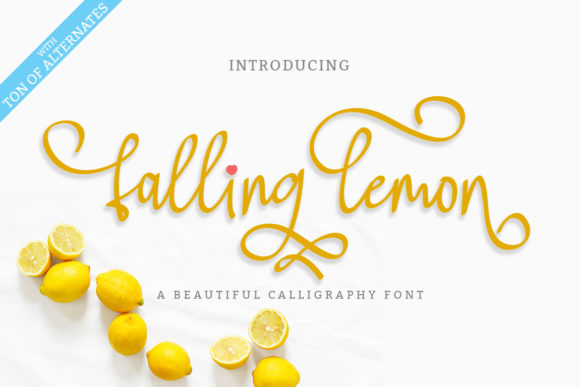
Step into a world of enchanting elegance with Falling Lemon Font, a magical script font born from the delicate strokes of a calligraphy pen. Madatype Studio, the creative force behind this masterpiece, has woven their passion for penmanship into every curve and swirl, capturing the essence of natural handwriting.
Like a gentle breeze rustling through autumn leaves, Falling Lemon Font dances across your screen, evoking a sense of nostalgia and charm. Its organic flow and graceful lines invite you to embark on a journey of self-expression, where your creativity knows no bounds.
Unleash your inner artist and let your imagination soar as you explore the boundless possibilities of Falling Lemon Font. From whimsical logos that exude personality to captivating branding that leaves a lasting impression, this font is your secret weapon for creating designs that speak to the heart.
Whether you're crafting a heartfelt message for a loved one, designing a stunning t-shirt that tells a story, or simply adding a touch of handwritten elegance to your latest project, Falling Lemon Font is your perfect companion. Its versatility knows no limits, making it the go-to choice for designers, crafters, and anyone seeking a font that breathes life into their creations.
Among the many treasures hidden within Falling Lemon Font, you'll discover a trove of alternate characters just waiting to ignite your creativity. Experiment with different letterforms, swashes, and ligatures to add a unique touch to your designs. The possibilities are endless, and the only limit is your imagination.
With Falling Lemon Font at your fingertips, you'll discover a world of endless possibilities, where every project becomes a canvas for your artistic expression. Embrace the beauty of natural handwriting, let your creativity flow, and let Falling Lemon Font guide you towards design excellence.